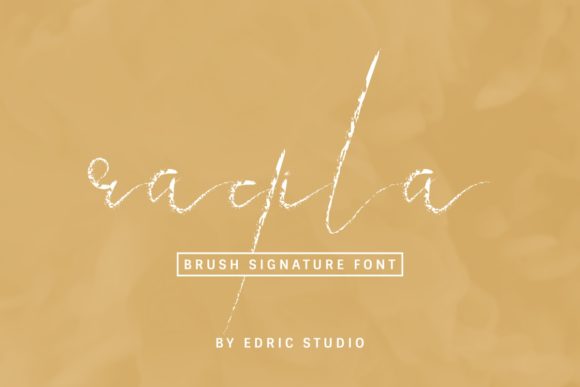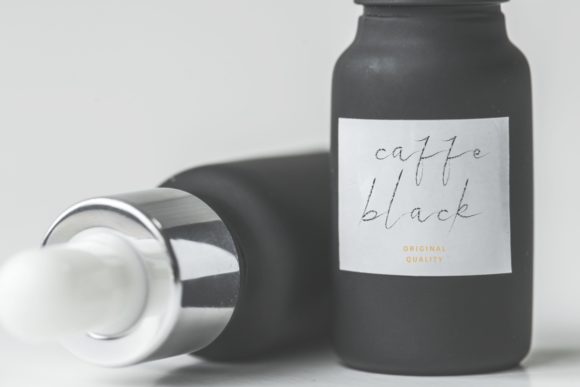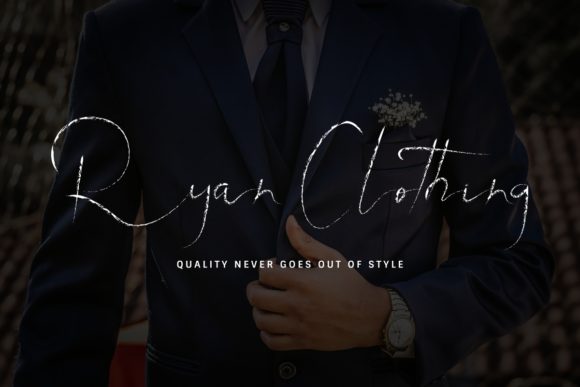
Introduction to Raqila Font
Raqila is a unique and fun handwritten font, created by using a brush pen.
It will elevate a wide range of design projects to the highest level, be it branding, headings, wedding designs, invitations, signatures, logos, labels, and much more .